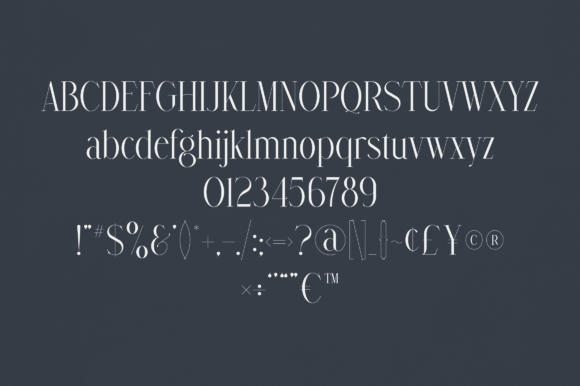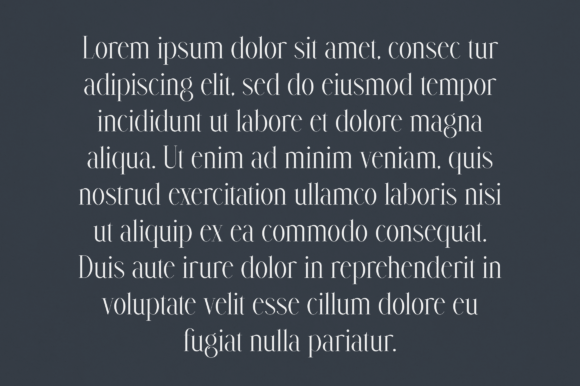
Introduction to Maxon Font
Have you ever stared at a blank canvas, waiting for that spark of creativity to strike? For designers, it’s a familiar feeling. We’re always on the lookout for the perfect design resource to elevate our projects. That’s where the Maxon Font comes in – a game-changing serif font that will transport your typography to new heights. Whether you’re crafting a logo, branding a new business, or simply adding a touch of elegance to your creative project, Maxon Font is the perfect companion.
With its sleek lines and sophisticated feel, Maxon Font is the epitome of high-quality design. Its versatility makes it a valuable asset for designers, allowing you to experiment with different styles and applications. From product packaging to magazine headers, Maxon Font is sure to leave a lasting impression. And the best part? It’s available for free download, making it an accessible design resource for creatives of all levels.
Key Features of Maxon Font
- Features a unique, modern design that sets it apart from other fonts in the market, perfect for adding a touch of sophistication to creative projects.
- Supports a wide range of languages, including Latin, Cyrillic, and Greek, making it a versatile font for international designs.
- Designed to be highly legible, even at small font sizes, making it an ideal choice for body text and headings in creative projects.
Honest Review: Maxon Font
As a designer, I’ve had the chance to work with a wide range of fonts for various creative projects. Recently, I came across the Maxon Font, and I must say it’s been a pleasant experience.
What works well
- ✨ High-quality design: The Maxon Font is designed with precision and care, making it perfect for a variety of design projects.
- ⚠️ Limited style options: While the font is well-designed, the style options are somewhat limited, which may not appeal to designers looking for more flexibility.
- ⚠️ Not suitable for all projects: The font may not be the best choice for projects requiring bold or dramatic typography.
Overall, I’m impressed with the Maxon Font as a design resource. Its high-quality design, transparent background, and free download make it a great choice for many creative projects. However, designers may want to consider its limitations when choosing a font for their next design project.
Maxon Font
The Maxon Font is a versatile and high-quality design resource perfect for any creative project. With its transparent background and free download option, it’s a must-have for designers and artists.
Common Use Cases for Maxon Font
The Maxon Font is perfect for a variety of creative projects, including: graphic design, digital art, web design, and print design. Its high quality and transparent background make it ideal for creating professional-looking designs and graphics.